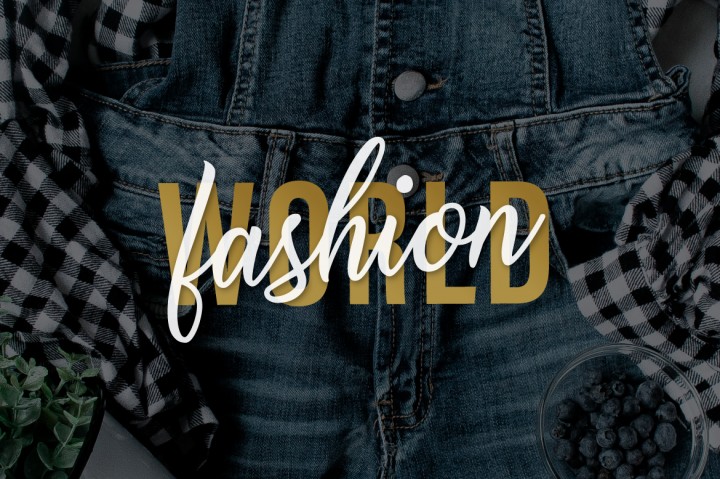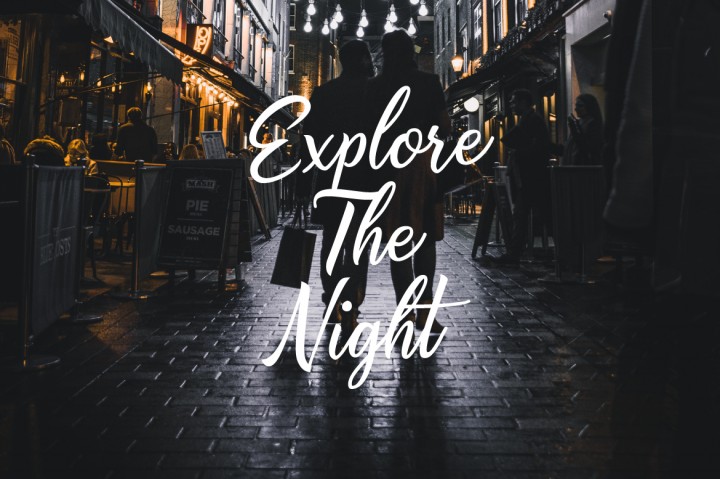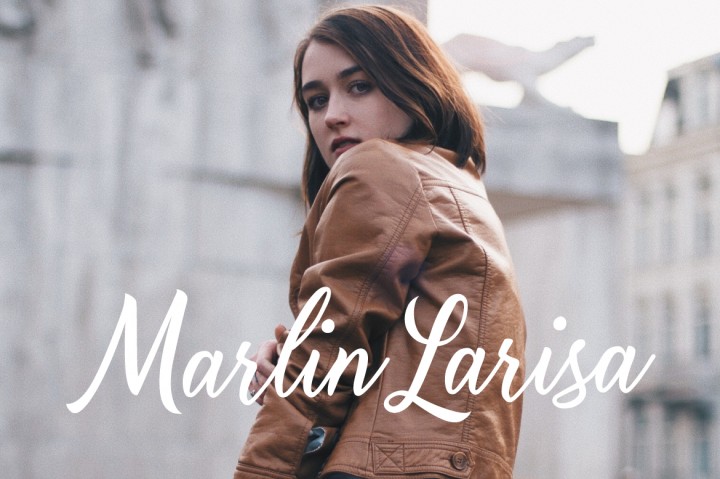
Alishader Script Font
Alishader Script – Font Demo
Alishader – an elegant and modern calligraphy / cursive font! It is was designed and shares by Typia Nesia. Alishader is perfect for your up coming projects. Such as modern invitation design, branding, stationery design, blog design, modern advertising design, card invitation, art quote, home decor, book/cover title, special events ( wedding, birthday, etc ), and any modern elegant calligraphy needs.